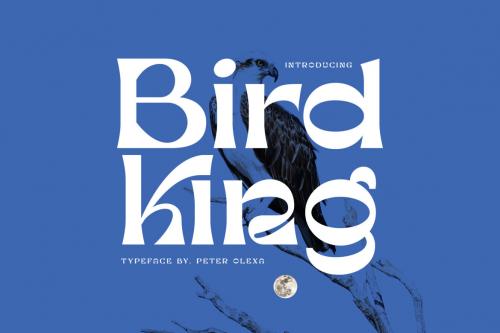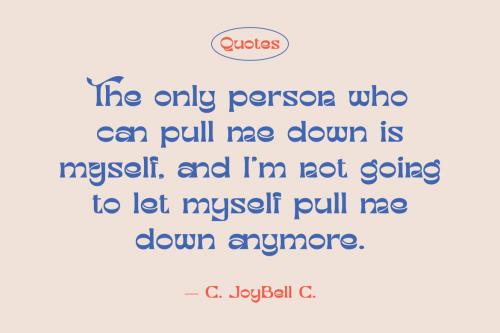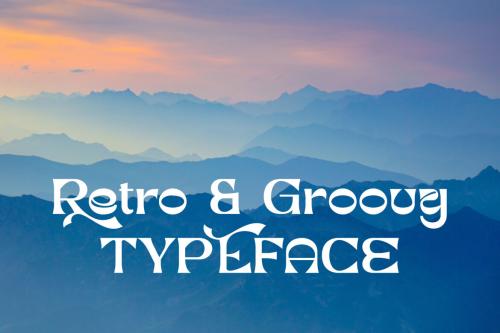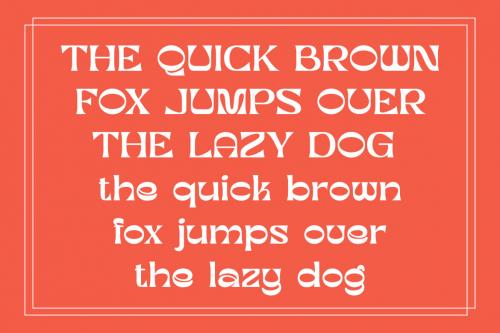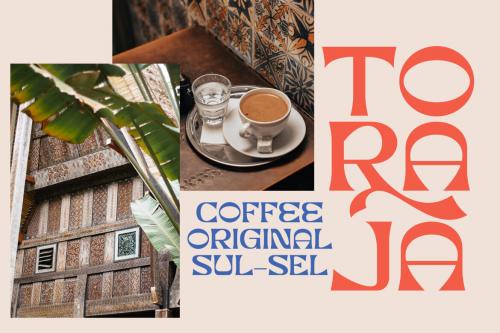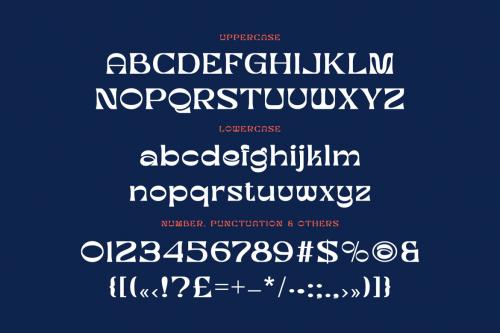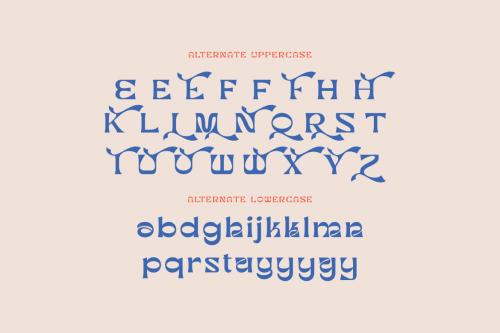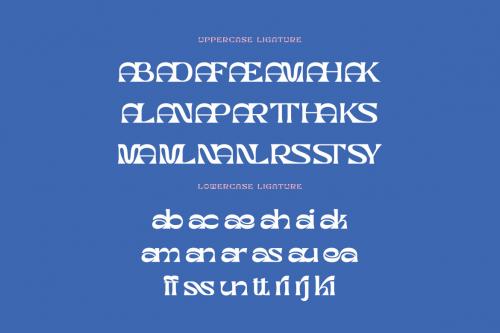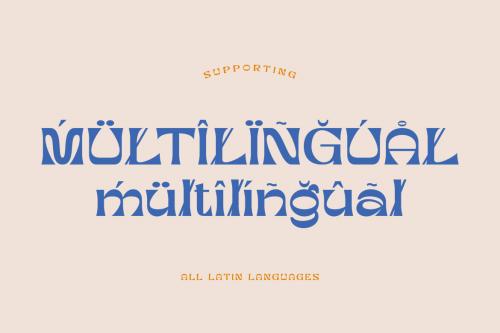
Deeezy - Bird King Retro Serif
Trendy, groovy, artistic & retro style font for your new modern projects. Elegant, artistic, quirky and funky style on Bird King font will be great for any branding project. Lot of alternates and ligatures will help you to create unique and original logo design or website header! Enjoy :)